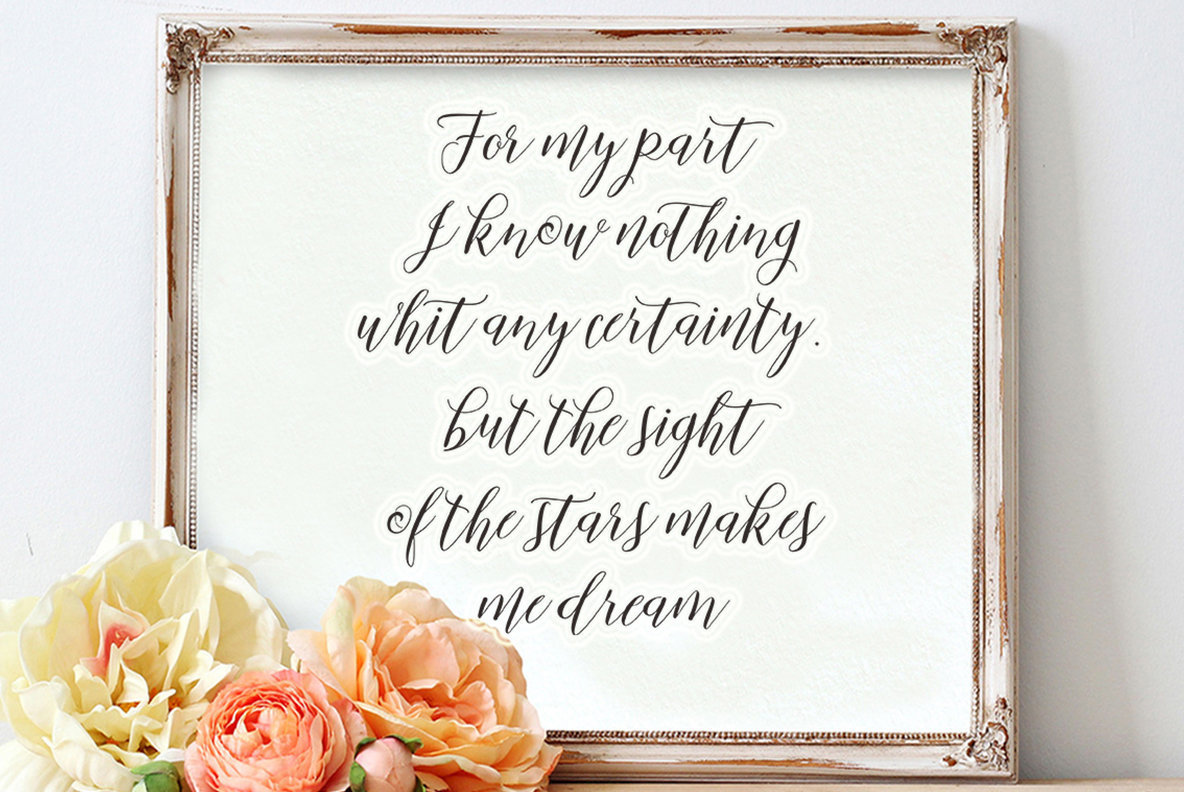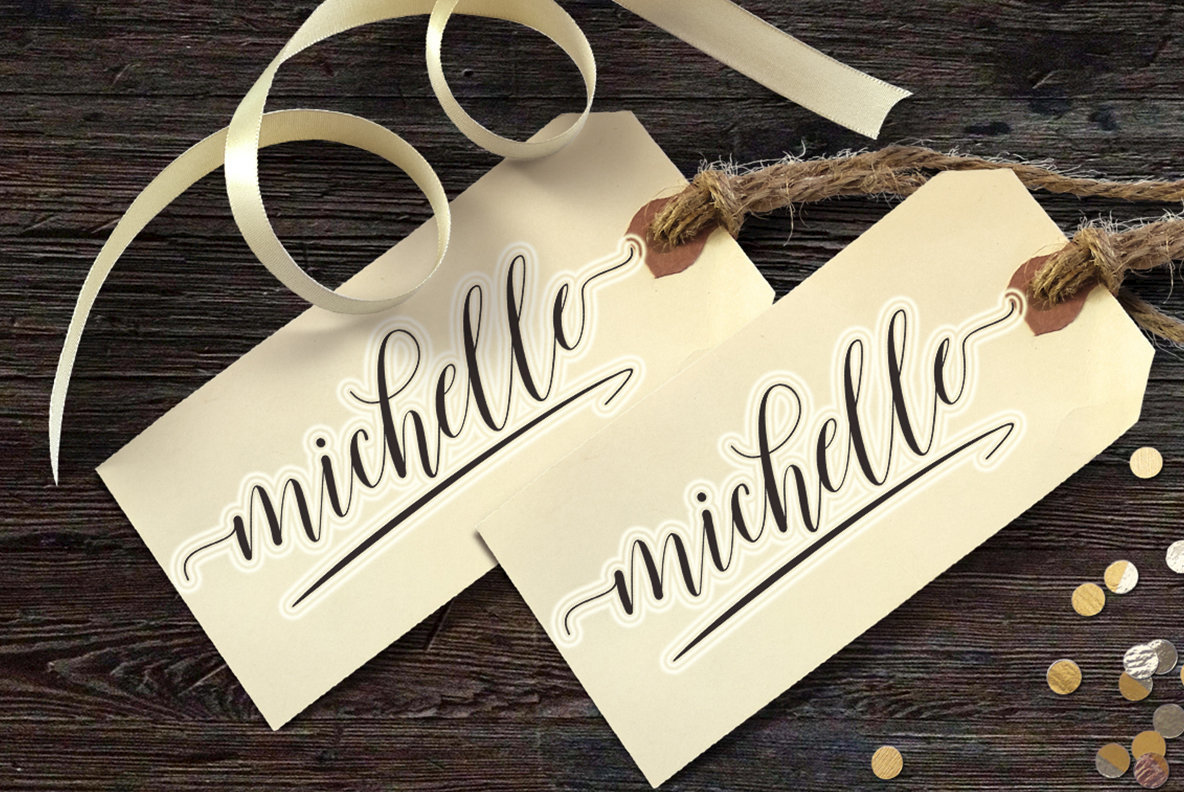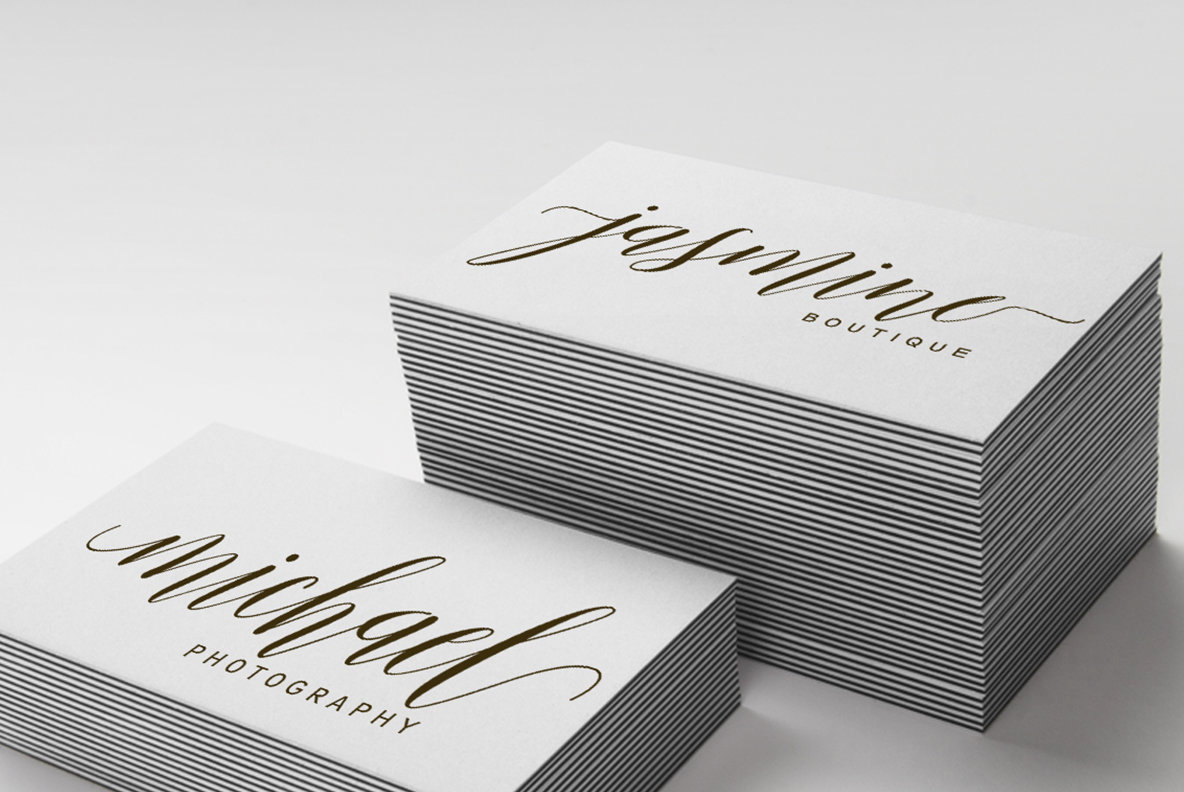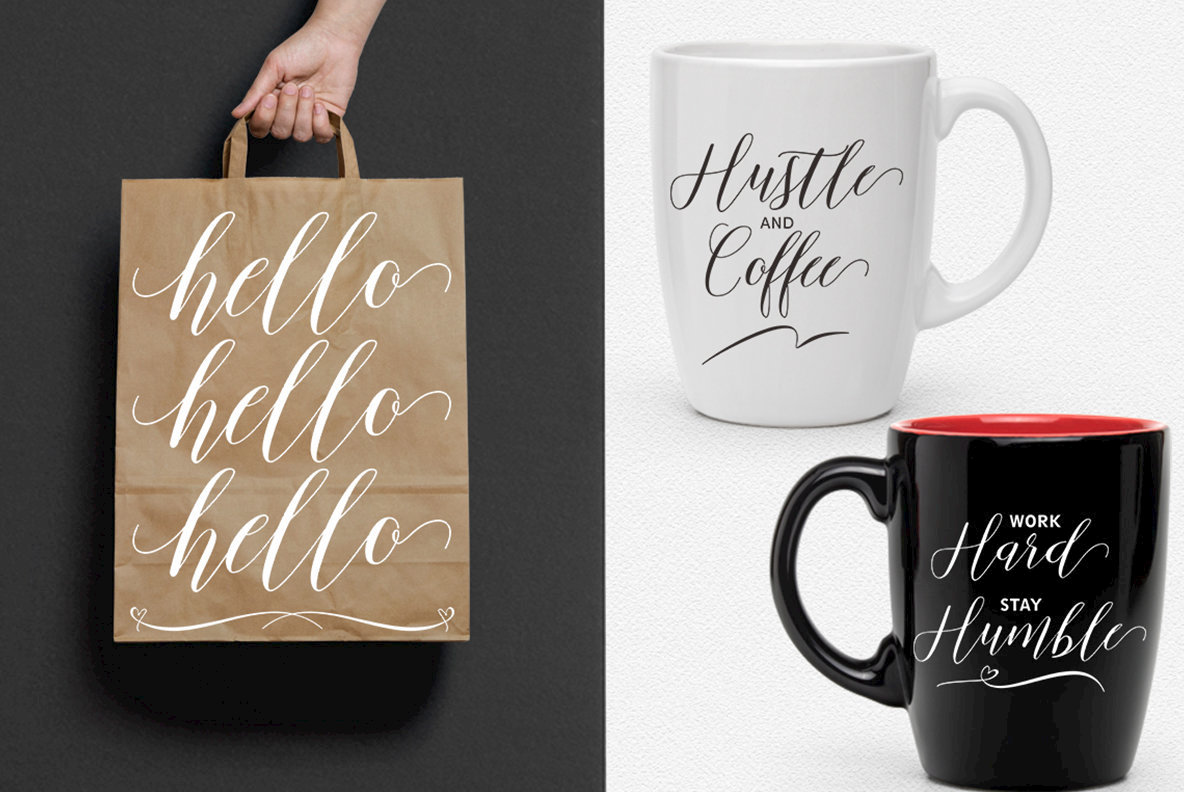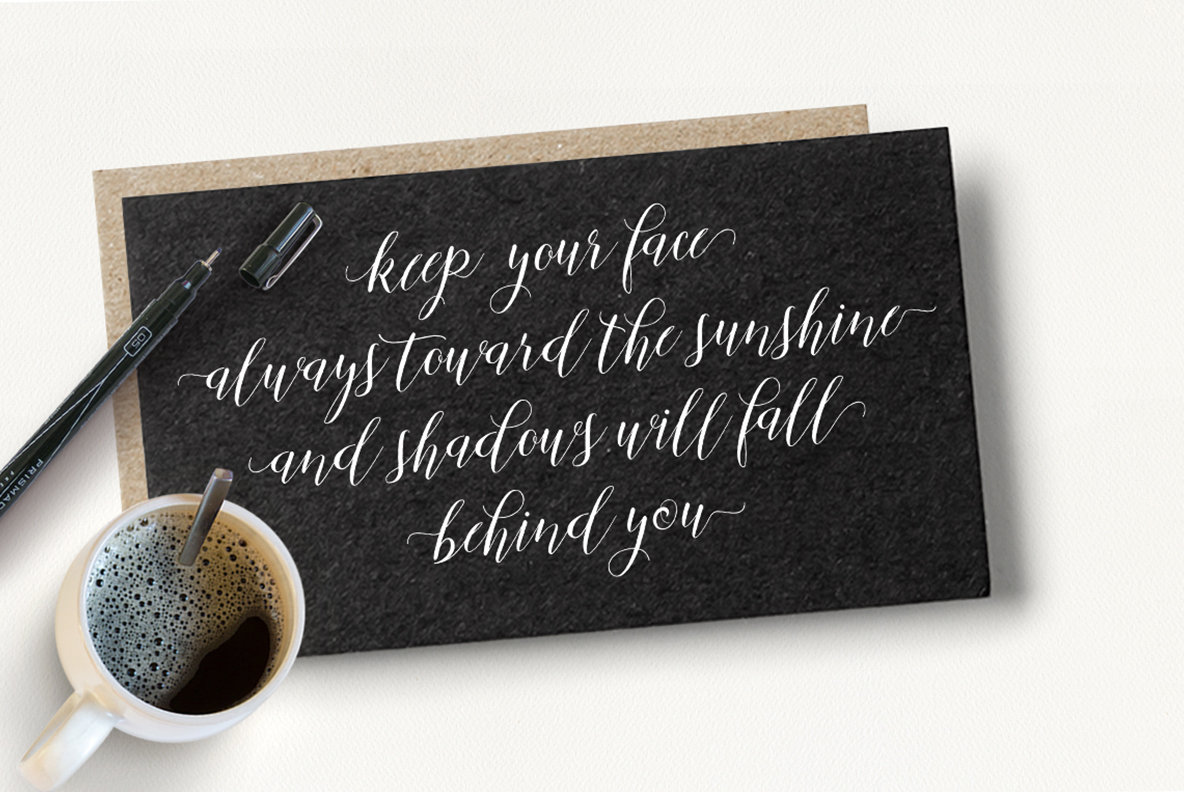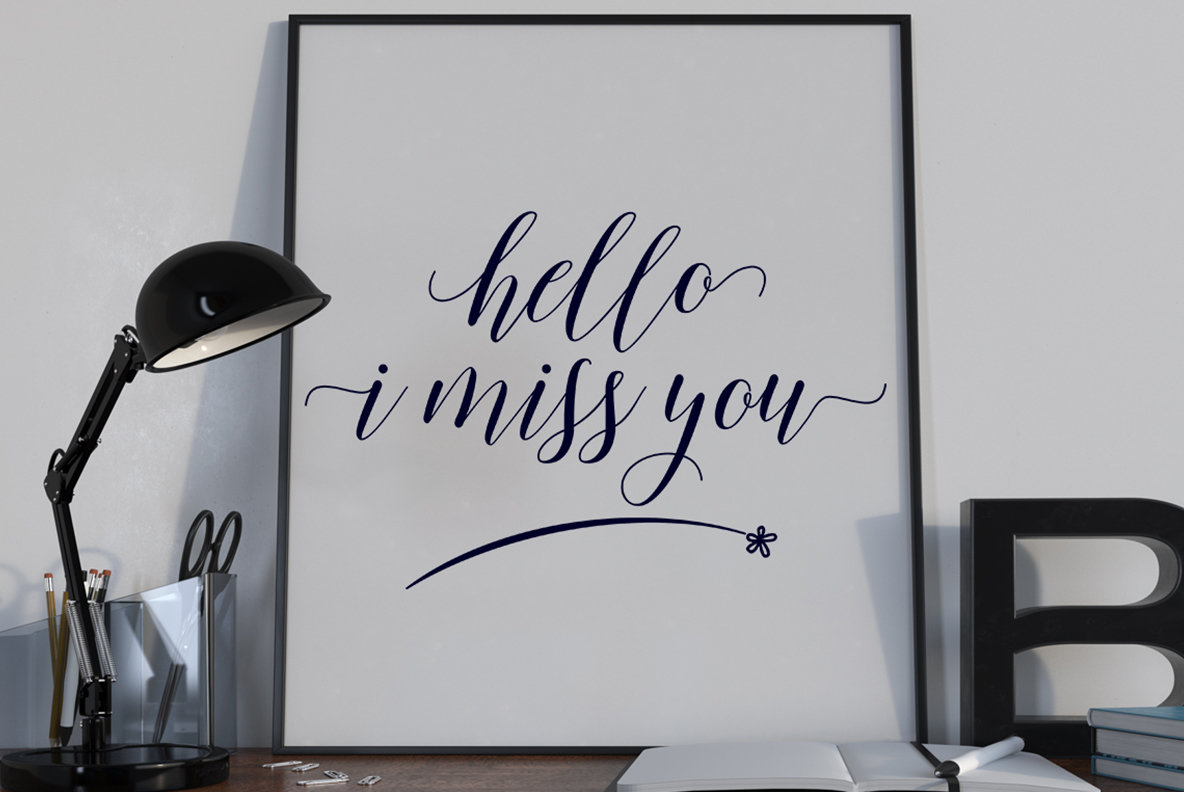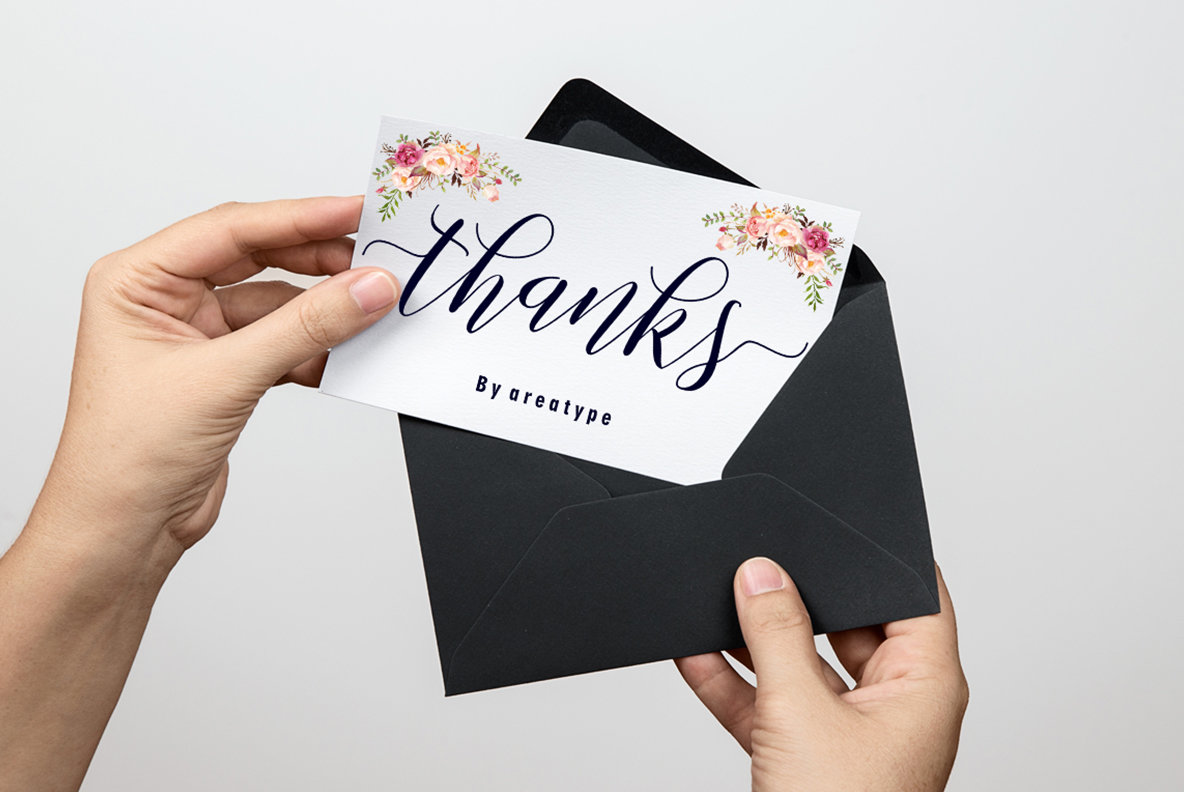
Mallicot Script Font
Mallicot Script is a calligraphic, modern, and organic script font design. Mallicot contains Opentype features such as ligatures, stylistic sets and it contains multilingual language support.